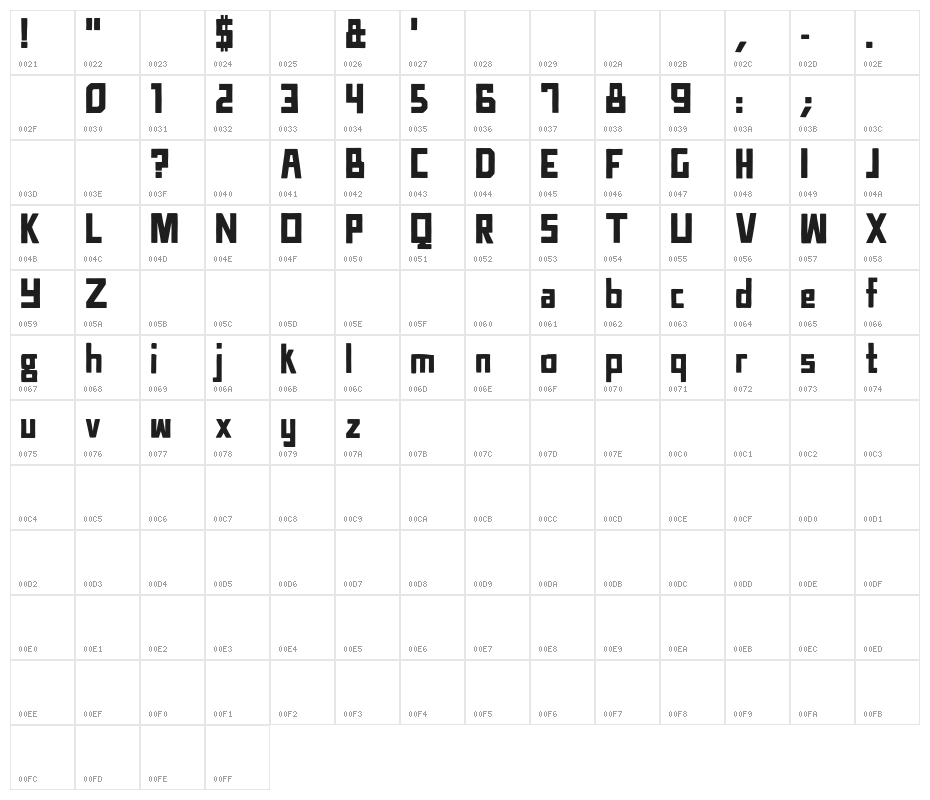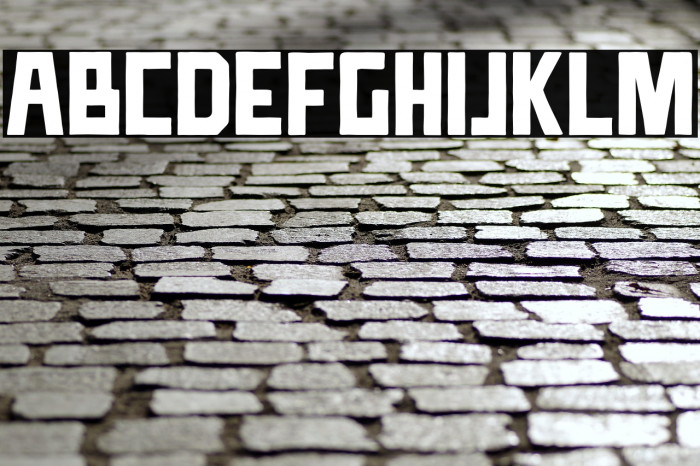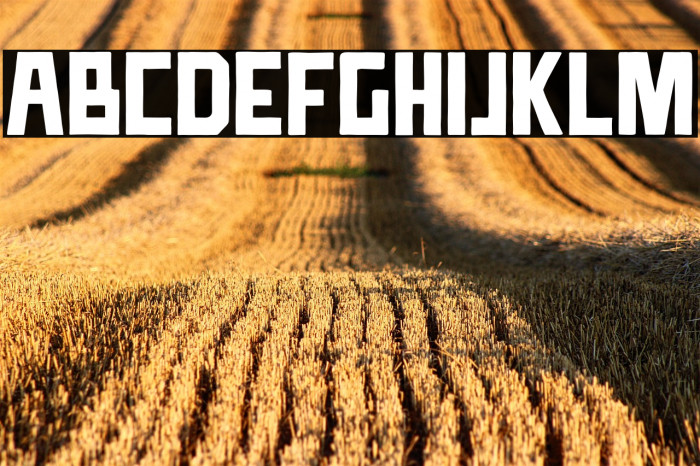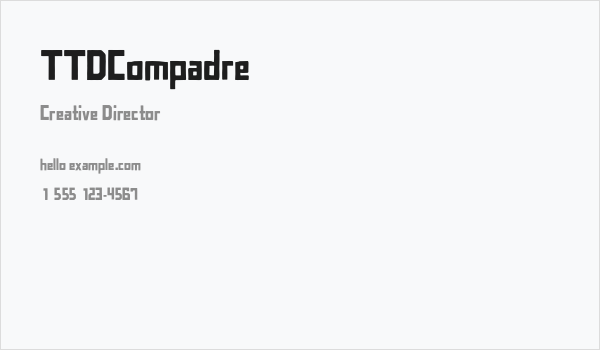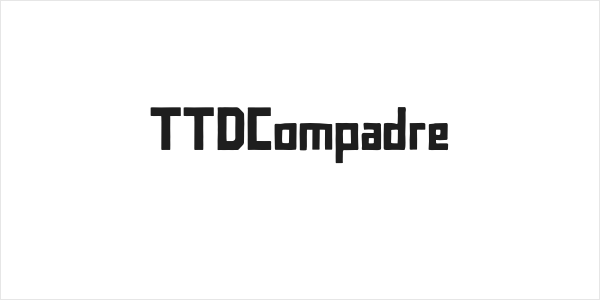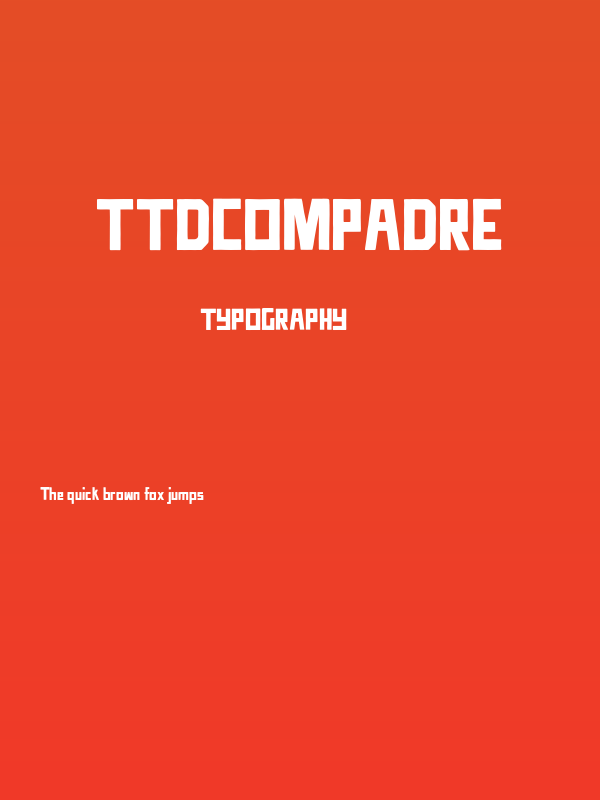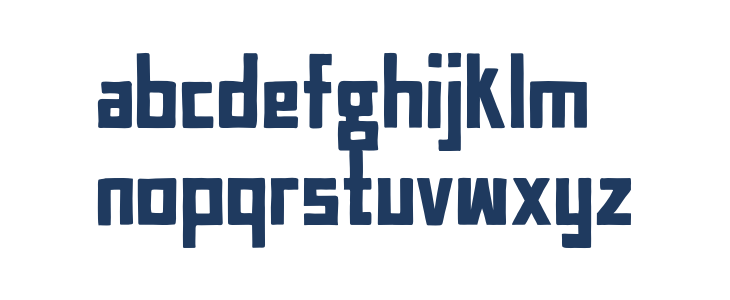
TTDCompadre Font
TTDCompadre Description
This font features a bold and robust design with a strong geometric structure. The characters are blocky and angular, giving it a modern and industrial feel. The uppercase and lowercase letters maintain a consistent width, contributing to a uniform appearance. The numerals are equally bold, matching the style of the alphabet. Special characters are designed to complement the overall aesthetic, maintaining the same weight and angularity. This font is highly legible and makes a strong visual impact, suitable for attention-grabbing headlines or branding materials.
| Proposed Projects | Ideal for branding, posters, headlines, and any project requiring a strong visual impact. |